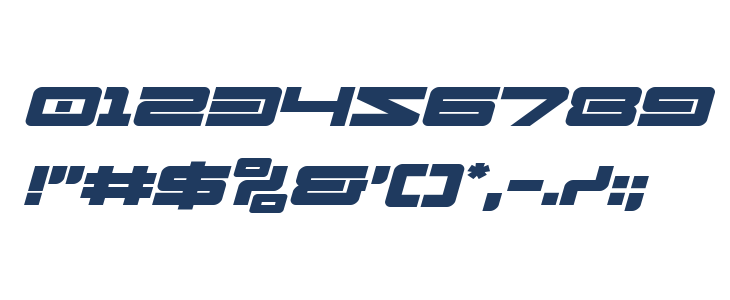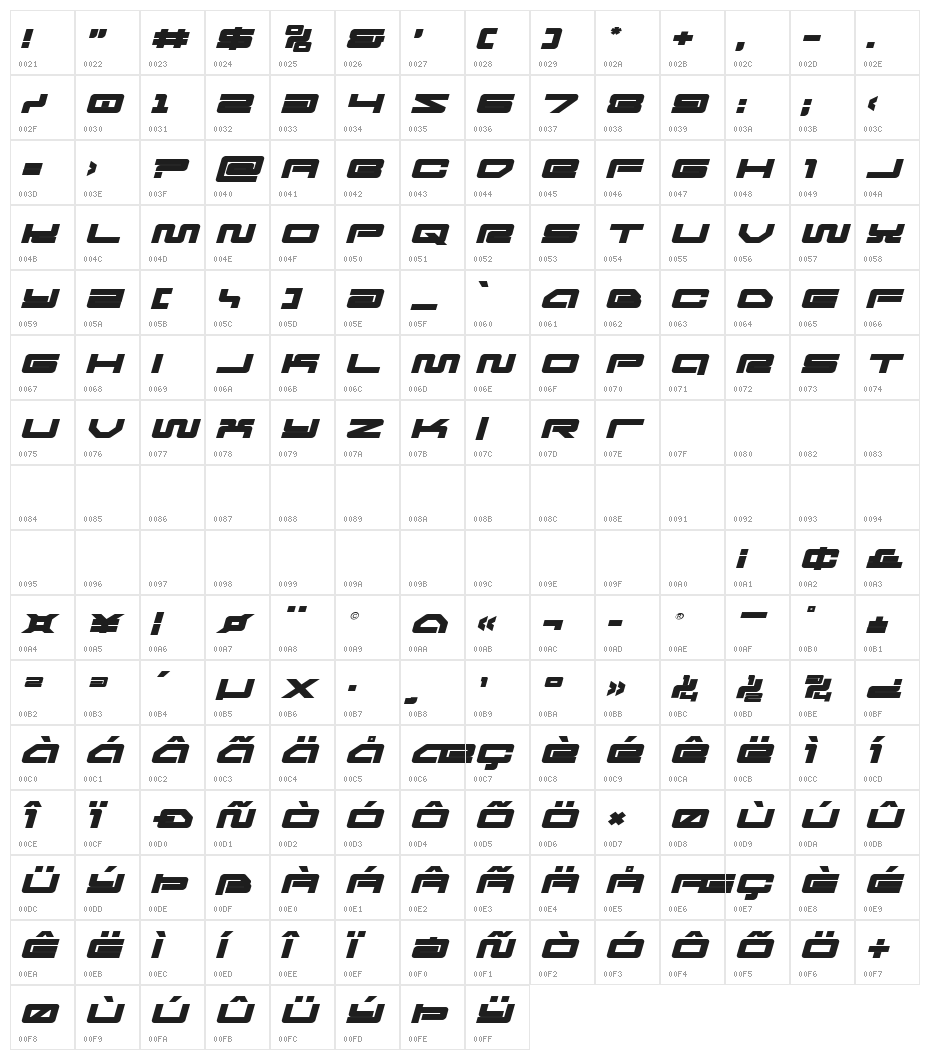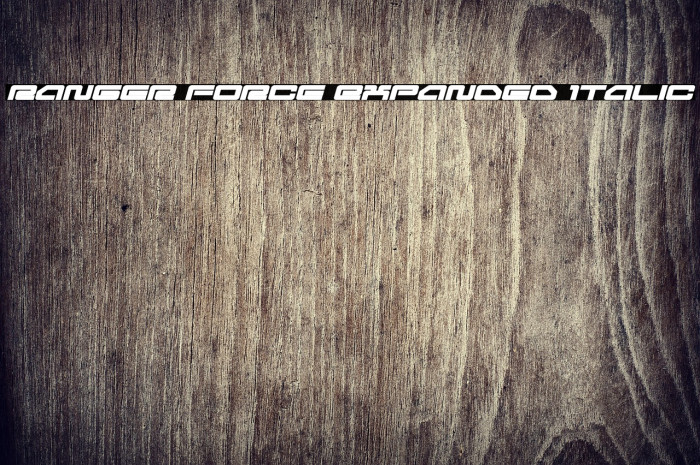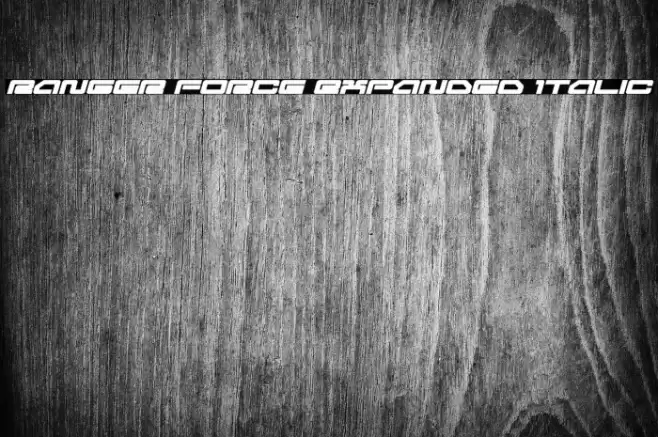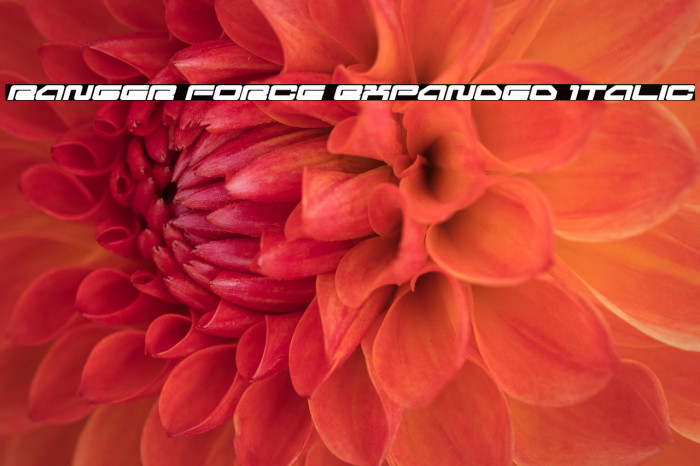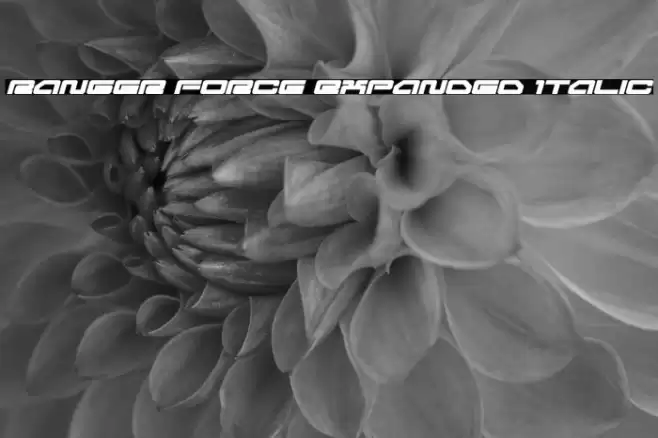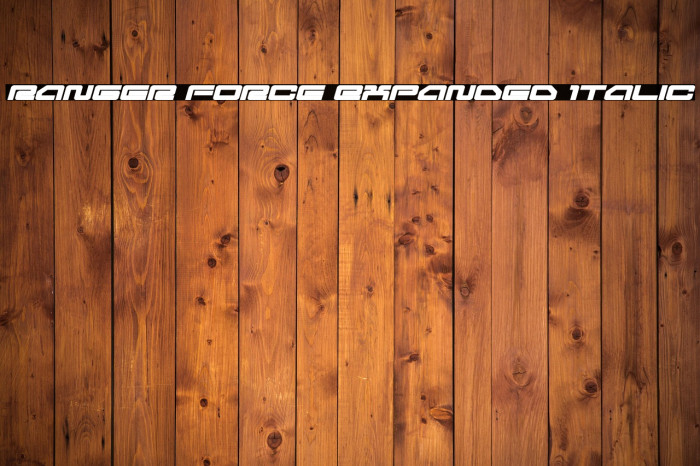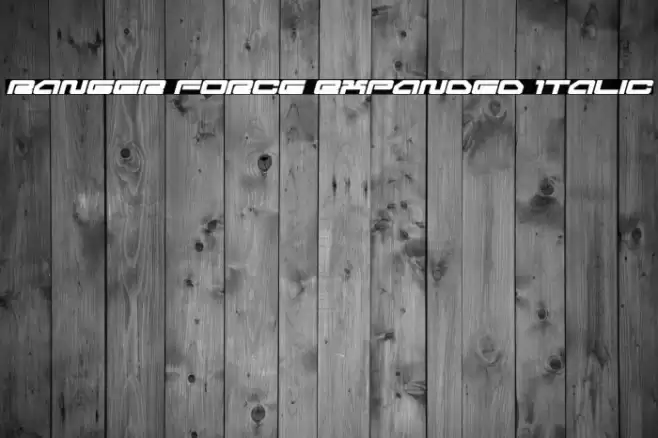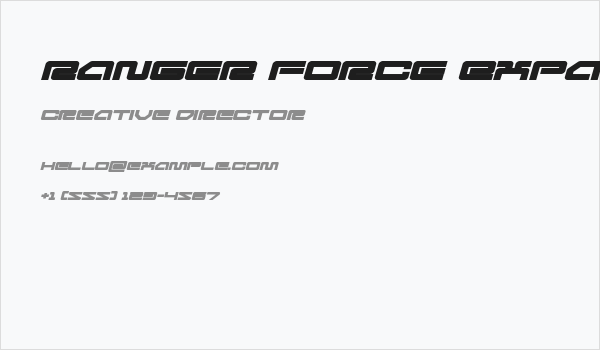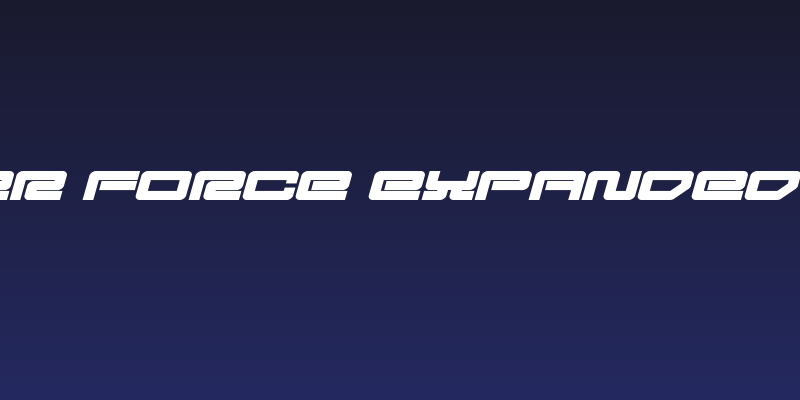
Ranger Force Expanded Italic Font
Ranger Force Expanded Italic Description
This font features a bold, futuristic design with an expanded width and italicized style, giving it a dynamic and forward-moving appearance. The characters are geometric and angular, with sharp edges and a consistent stroke width that conveys strength and modernity. The uppercase and lowercase letters maintain a uniform style, while the numerals and special characters complement the overall aesthetic. The font's expanded nature allows for excellent readability, making it suitable for impactful headlines and branding. Its unique style is ideal for projects that require a modern, tech-inspired look.